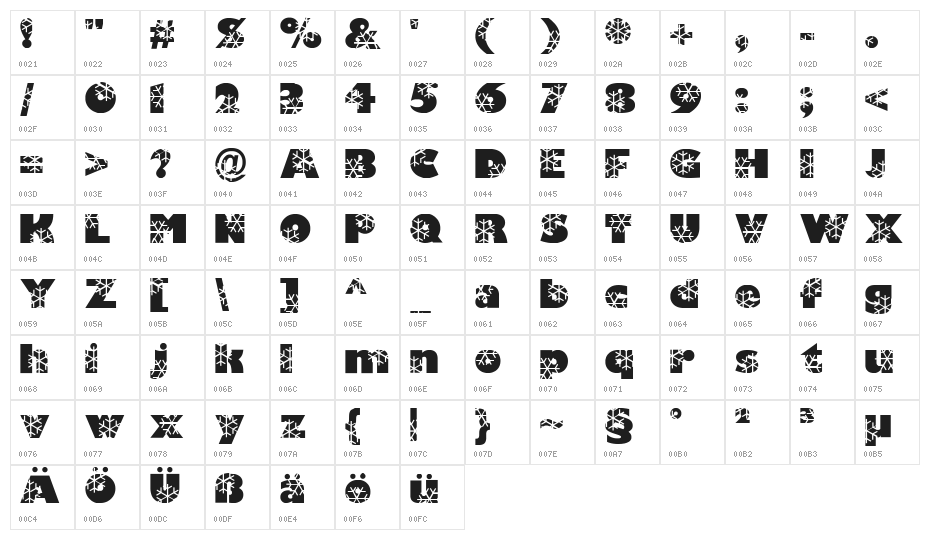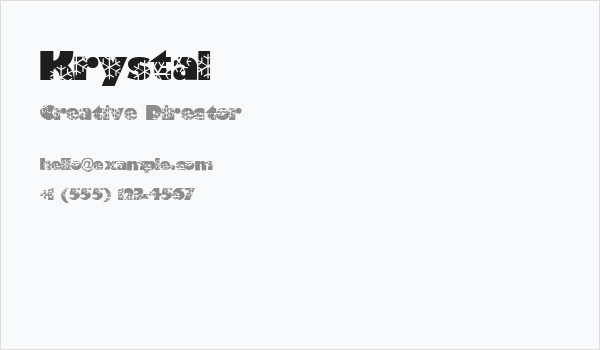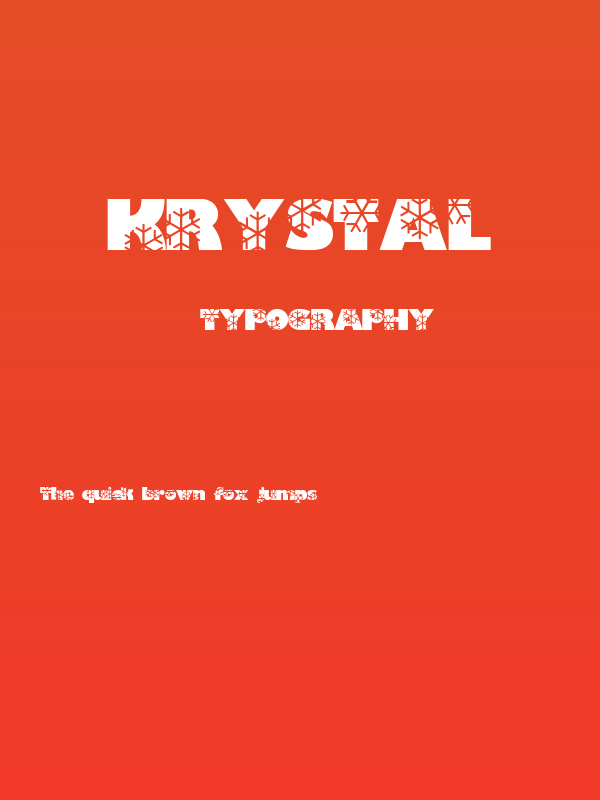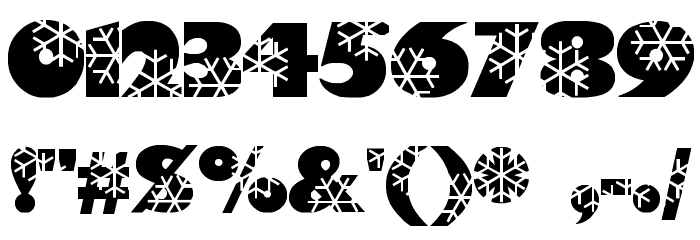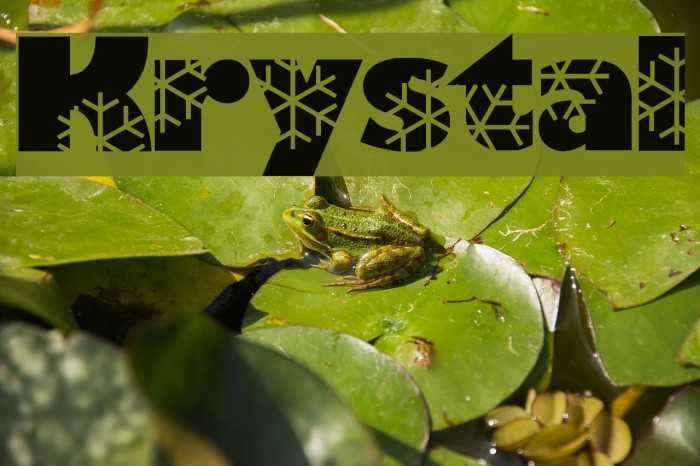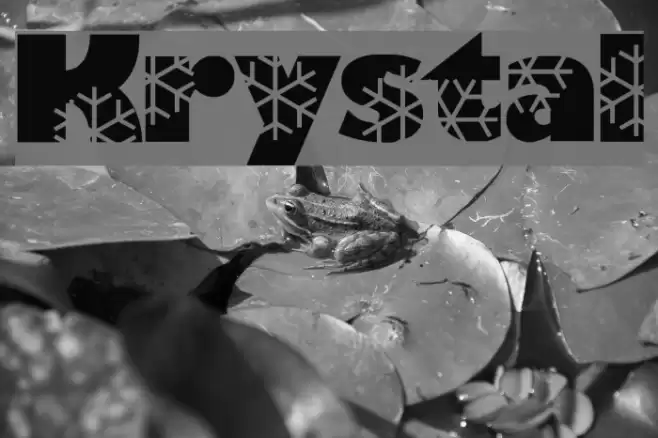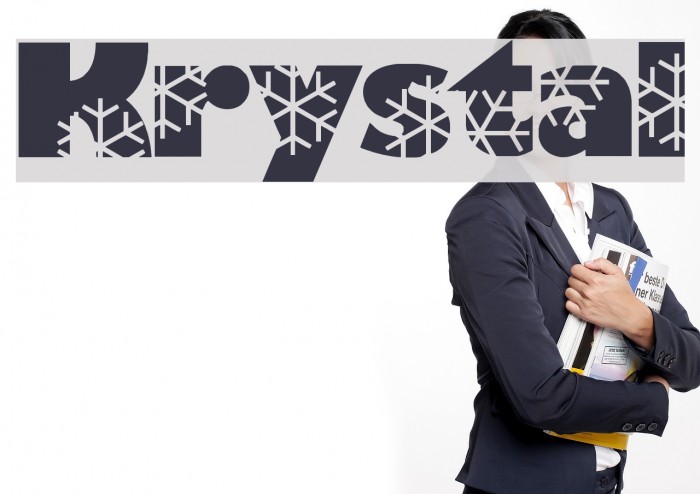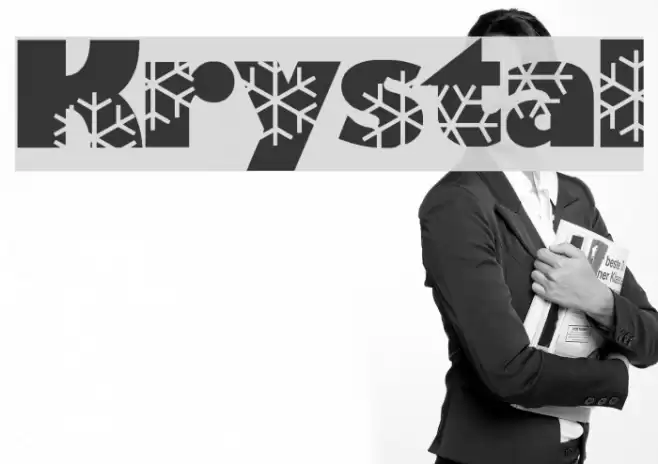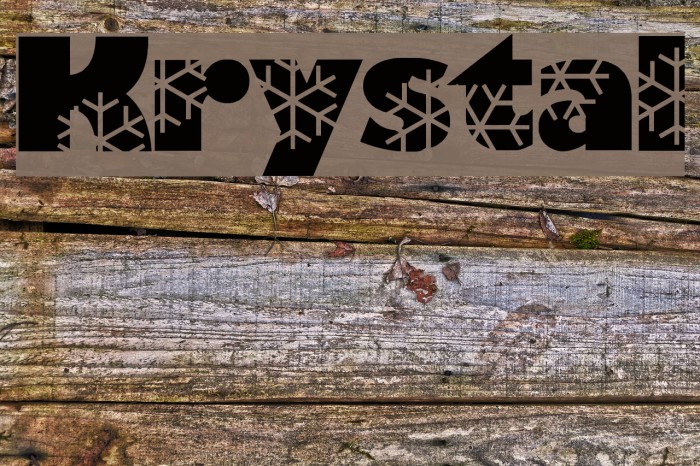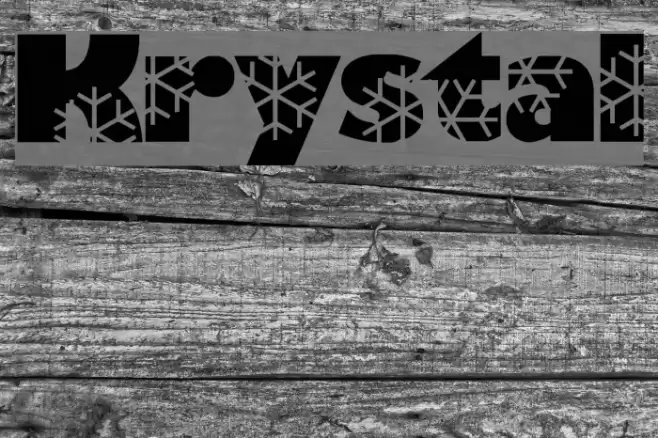
Krystal Font
Krystal Description
This decorative font features bold, geometric letterforms with intricate snowflake patterns embedded within each character. The uppercase and lowercase letters maintain a consistent style, with the snowflake motifs adding a festive and playful touch. The numerals and special characters are similarly adorned, creating a cohesive and visually striking appearance. The font's unique design makes it ideal for winter-themed projects, holiday cards, and festive branding. Its bold weight and decorative elements ensure it stands out in any design.
| Use Case | Headlines, Logos, Seasonal Designs |
| Proposed Projects | Ideal for holiday cards, winter-themed branding, festive invitations, and seasonal advertisements. |